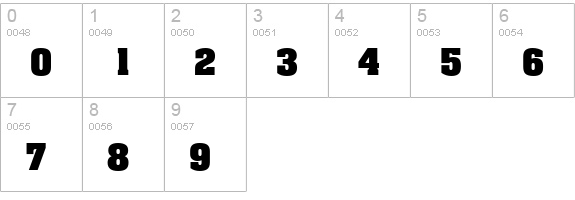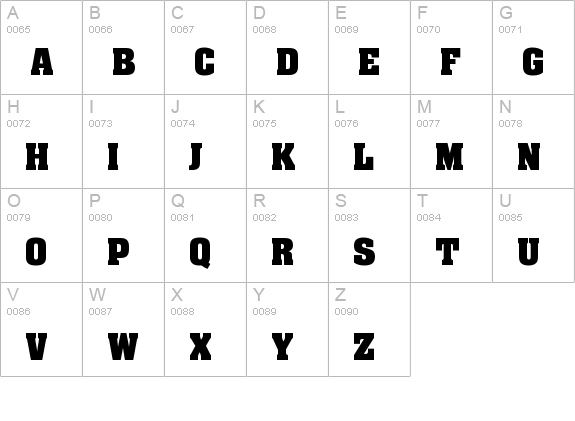
Aargau-Bold Font Details
Aargau-Bold is a strong, high-contrast variant in the Aargau typeface family \xE2\x80\x94 well suited to headlines, attention-grabbing titles, and strong calls-to-action.
Introducing Aargau-Bold, a sleek and modern typeface that exudes confidence and sophistication. With its bold and assertive letterforms, this font is perfect for making a bold statement in your design projects. The strong and powerful presence of Aargau-Bold will grab the attention of viewers and leave a lasting impression. What sets Aargau-Bold apart is not only its striking design but also the fact that it is available for free download at FontsMarket.com. Yes, you read that right - this premium font can be yours at no cost, making it an incredible value for designers and creatives looking to elevate their work without breaking the bank. Whether you're working on branding materials, posters, packaging, or any other design project that requires a touch of boldness, Aargau-Bold is the perfect choice. Download it now from FontsMarket.com and unleash the power of this exceptional font in your designs.